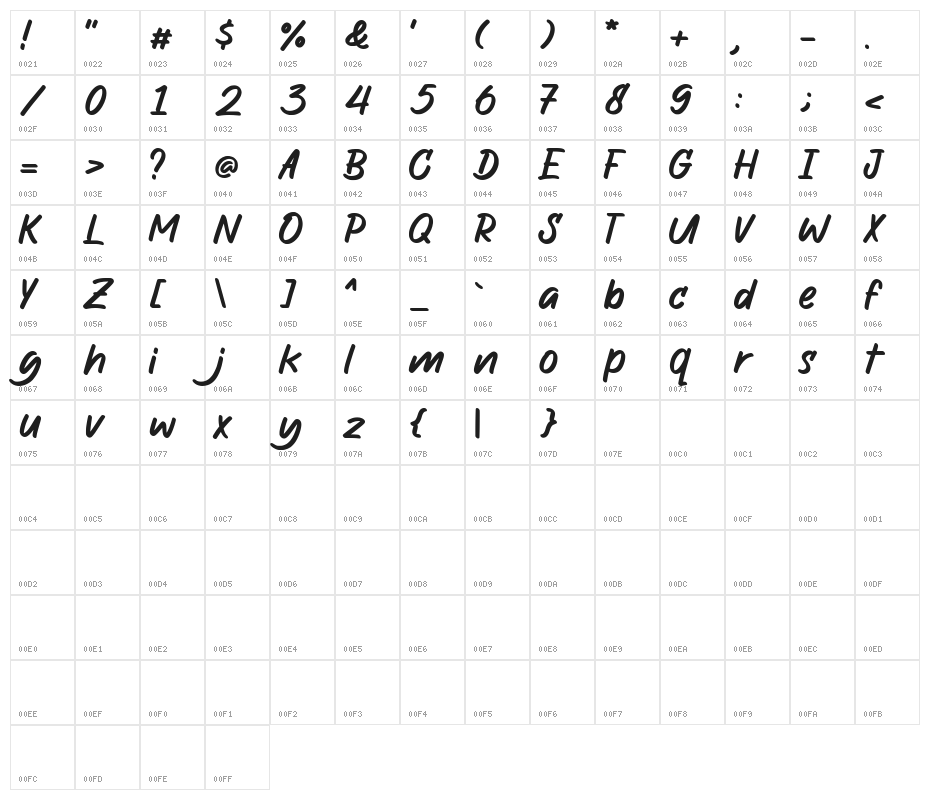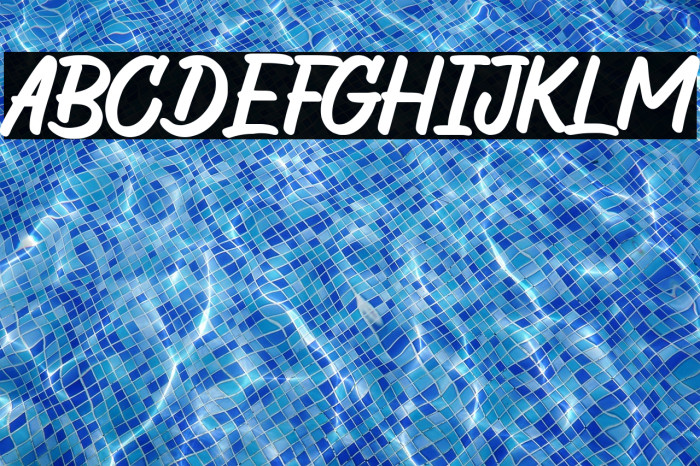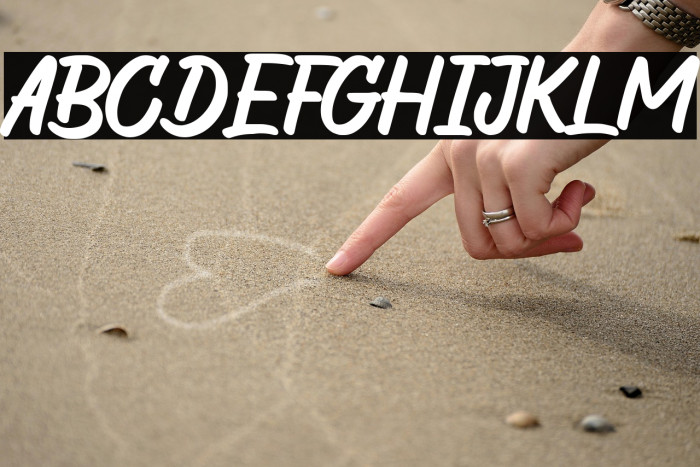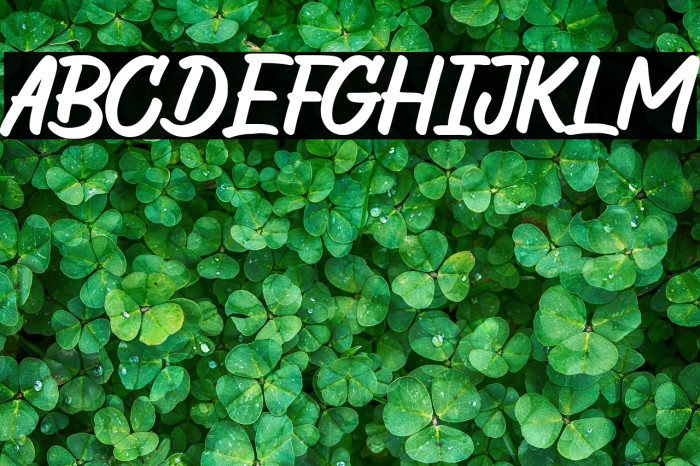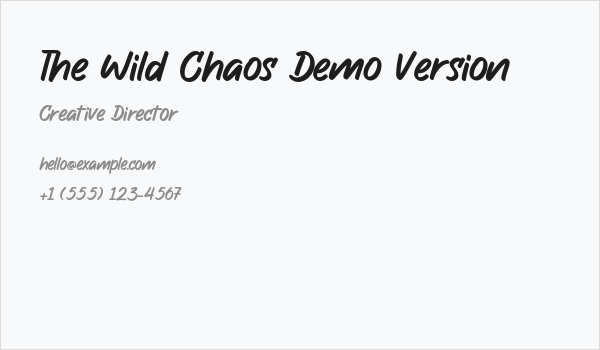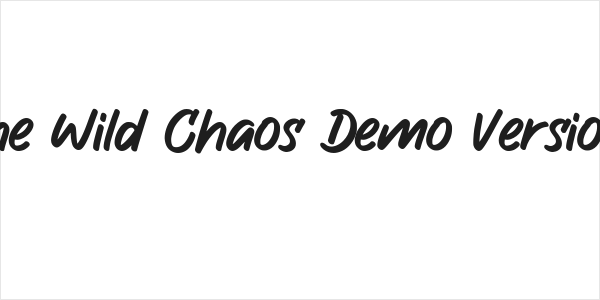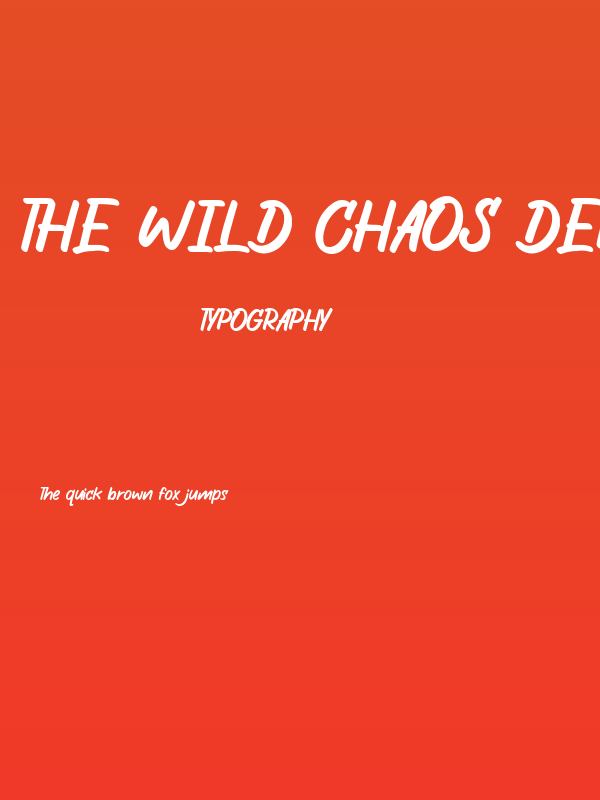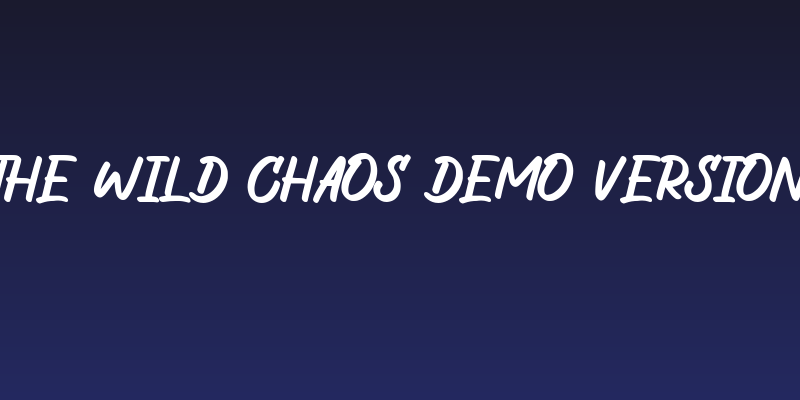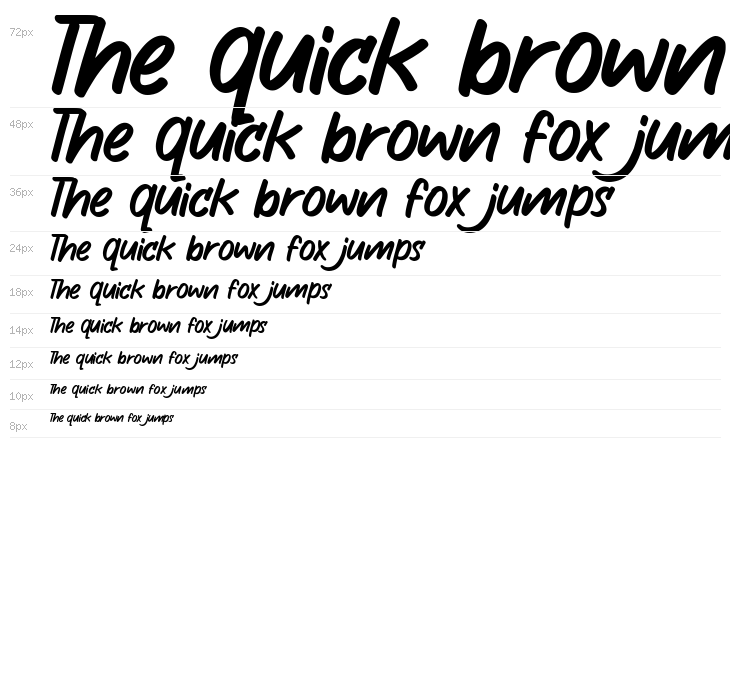
The Wild Chaos Demo Version Font
The Wild Chaos Demo Version Description
This font features a bold, energetic script style with a handwritten feel. The letters are fluid and connected, giving a sense of motion and dynamism. The uppercase letters are slightly larger and more pronounced, while the lowercase letters maintain a consistent flow. Numbers and special characters are designed to match the lively aesthetic, making them stand out with their bold strokes. The overall appearance is playful yet assertive, suitable for projects that require a personal touch.
| Proposed Projects | Ideal for branding, invitations, posters, and social media graphics where a personal and dynamic touch is desired. |